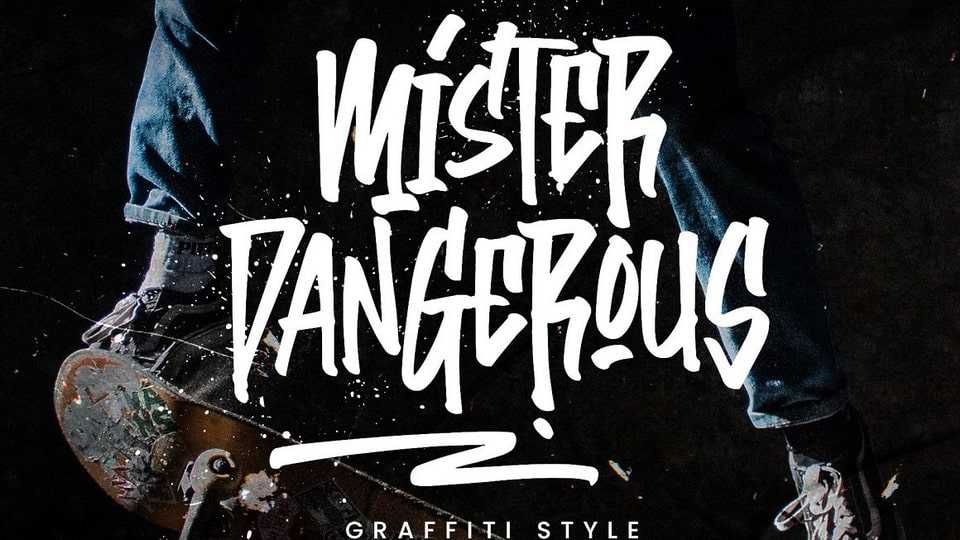
Download Mister Dangerous font, a hand lettered typeface inspired by the graffiti tags found in urban street art. Designed with dynamic freestyle flair, it brings the spirit of graffiti to your creative ideas.